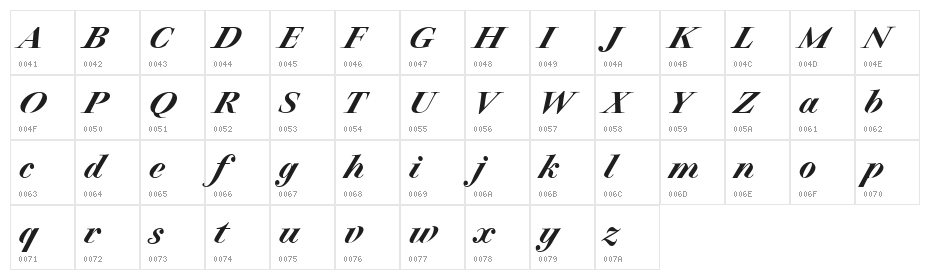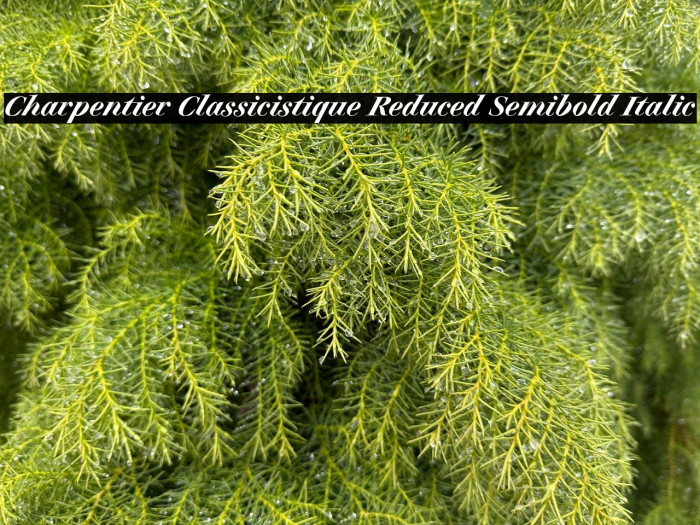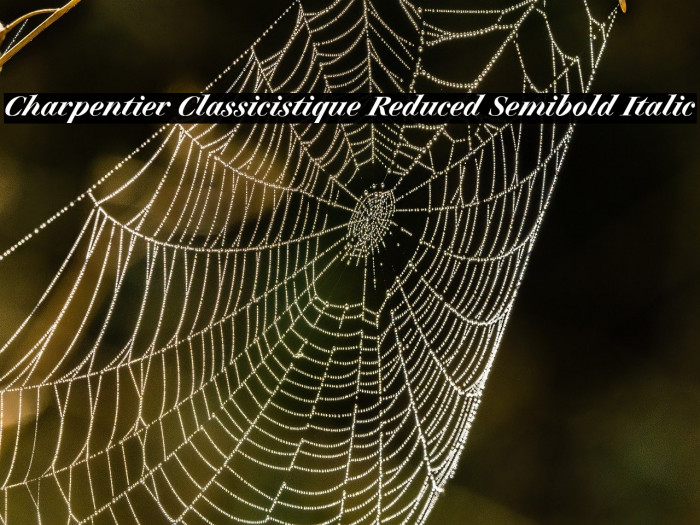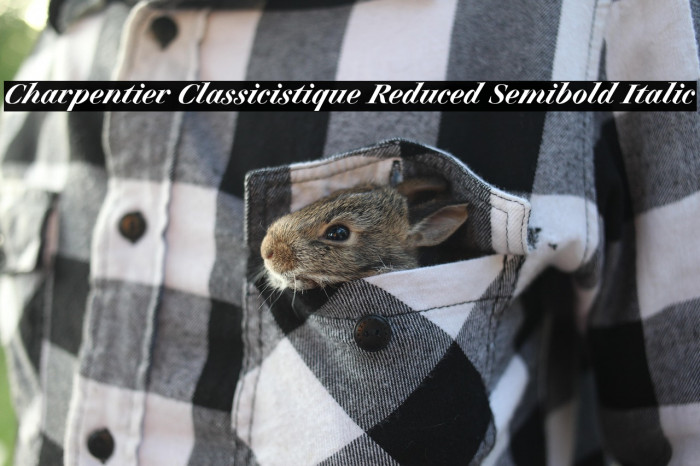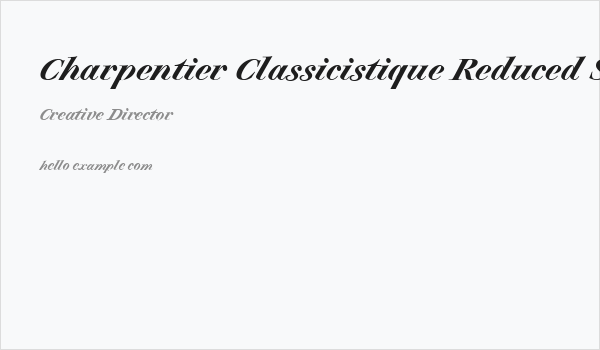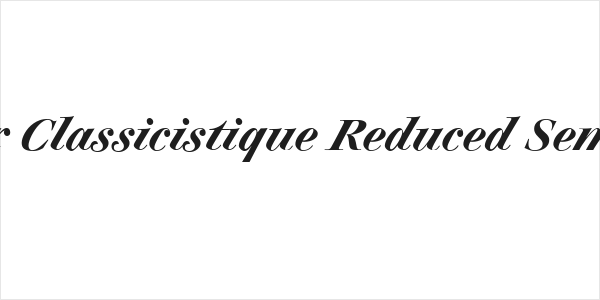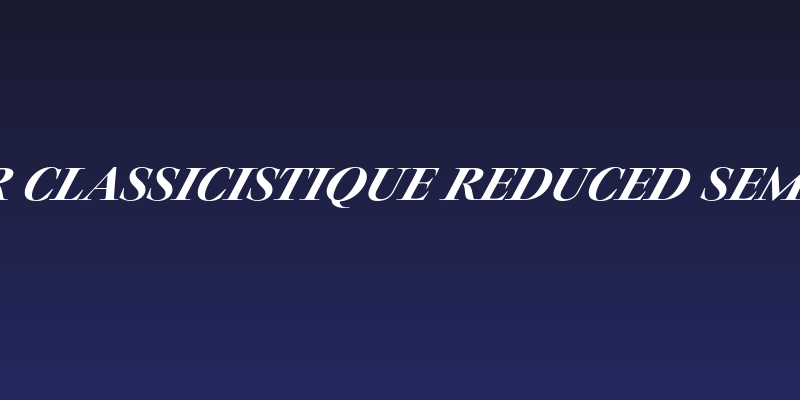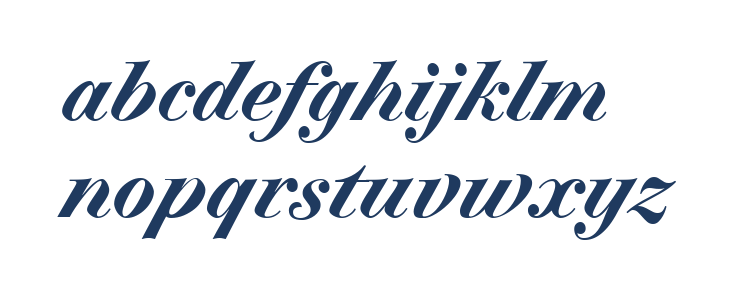
Charpentier Classicistique Reduced Semibold Italic Font
Charpentier Classicistique Reduced Semibold Italic Description
This font exudes a classic elegance with its semi-bold weight and italicized style, offering a refined and sophisticated appearance. The characters are gracefully slanted, providing a sense of motion and fluidity. The serifs are pronounced yet not overly ornate, contributing to a timeless aesthetic. The strokes vary in thickness, creating a medium contrast that enhances readability while maintaining a decorative flair. This font is well-suited for projects that require a touch of class and tradition, such as formal invitations, branding for luxury goods, or editorial design.
| Use Case | Headlines, Logos, Editorial Design |
| Proposed Projects | Ideal for formal invitations, luxury branding, editorial design, and elegant signage. |